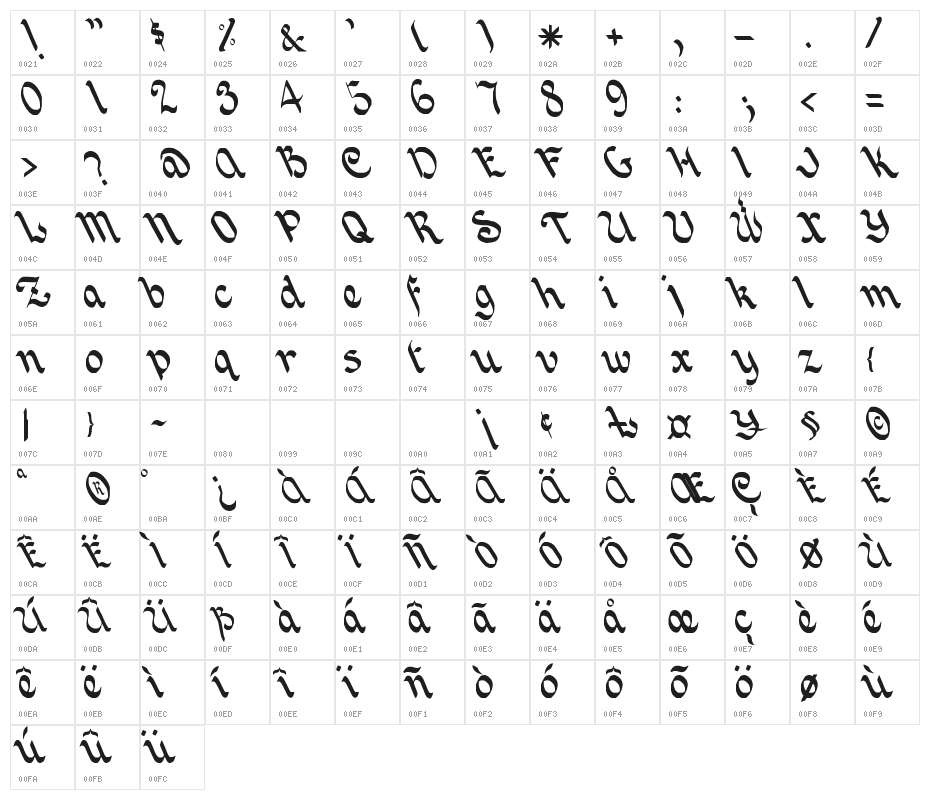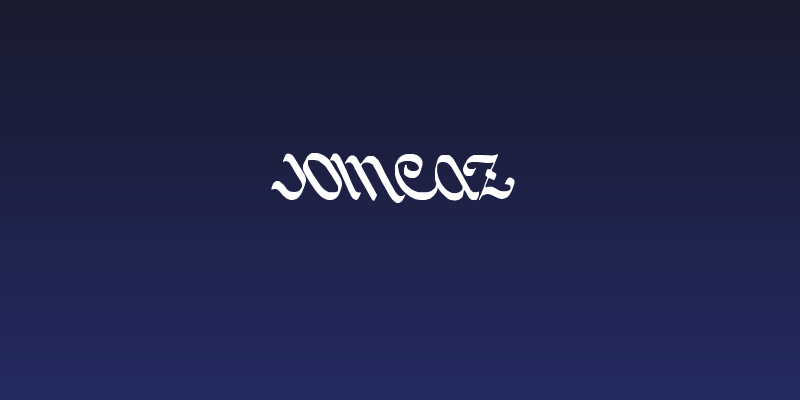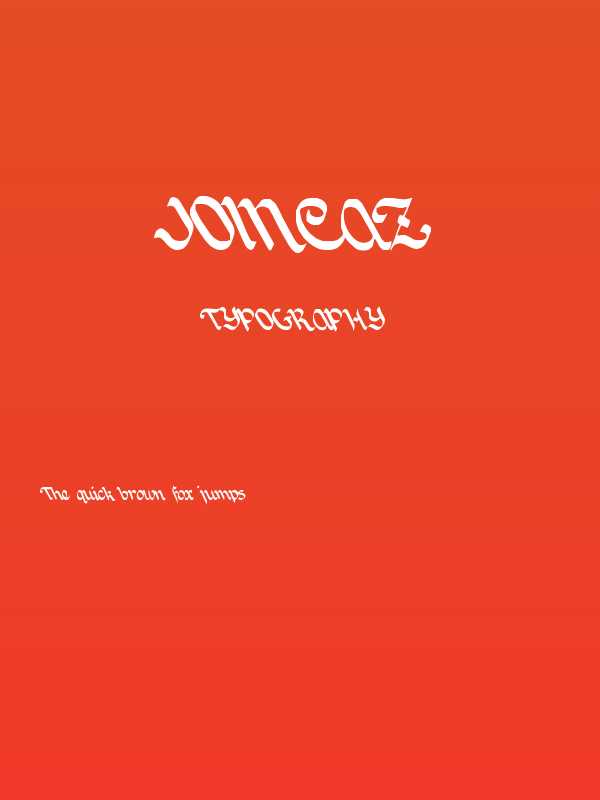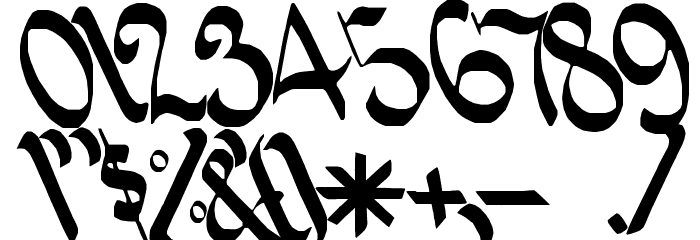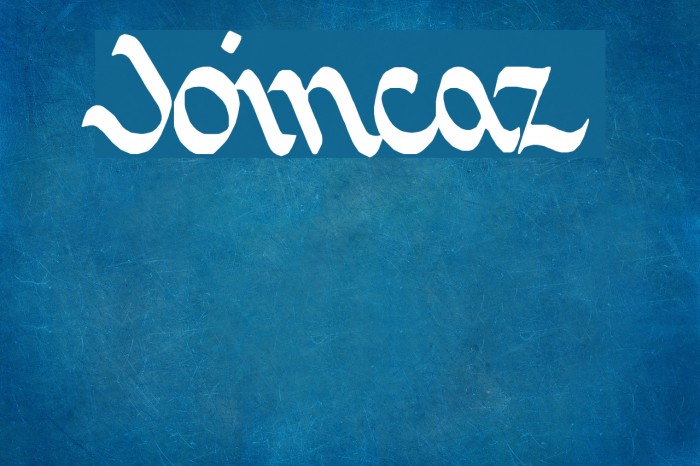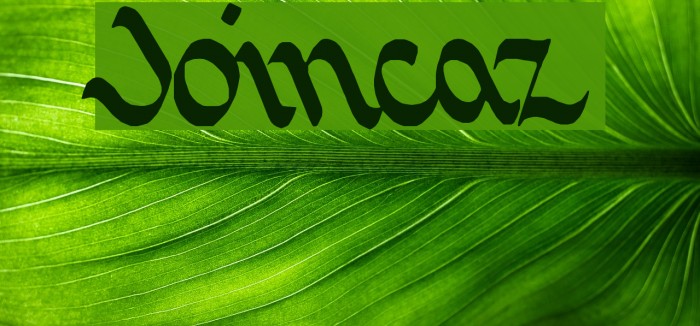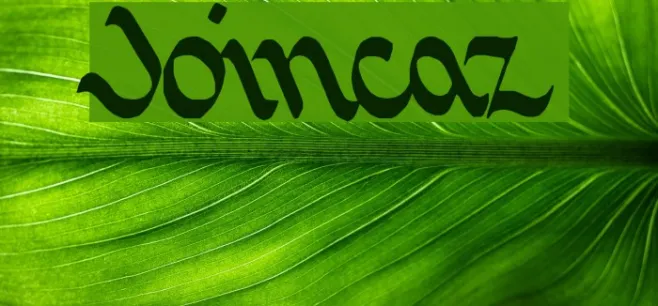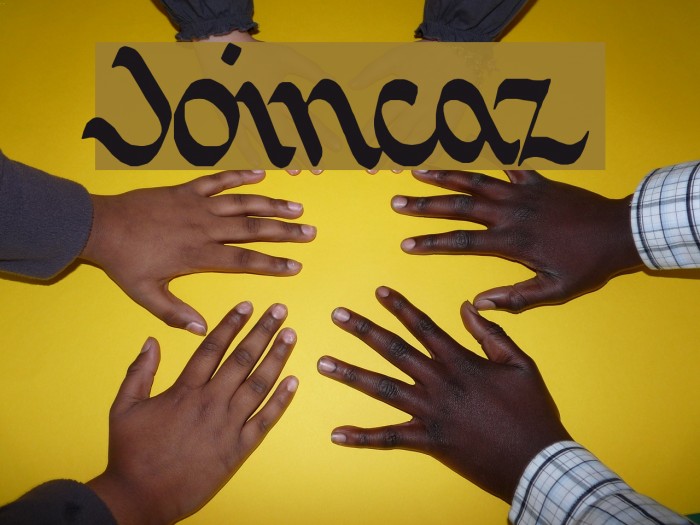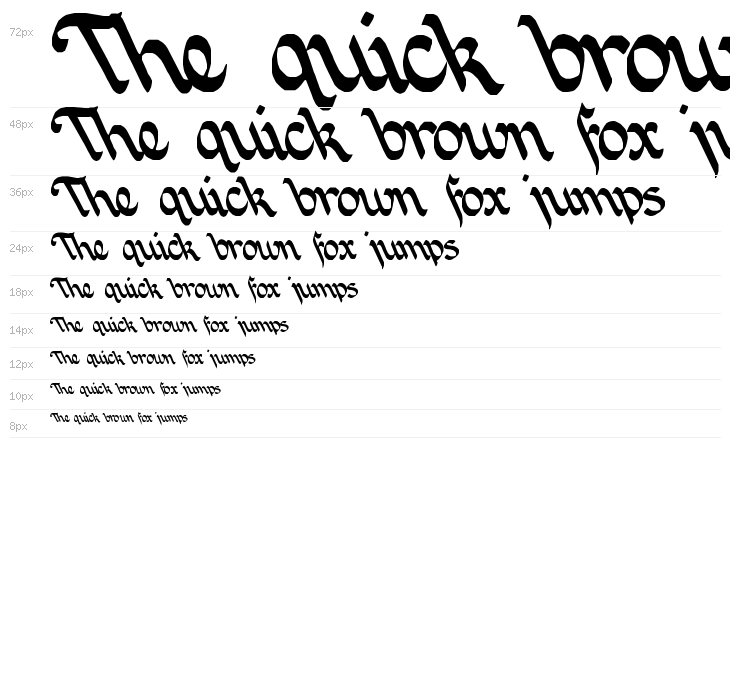
Joincaz Font
Joincaz Description
This font features a bold and dramatic style with a distinct calligraphic influence. The characters are intricately designed with sharp angles and flowing curves, creating a sense of movement and elegance. The uppercase letters are particularly striking, with elaborate flourishes that add a decorative touch. The lowercase letters maintain a consistent style, offering a harmonious balance between readability and artistic flair. The numerals and special characters are equally ornate, ensuring a cohesive look across all text elements. This font's unique aesthetic makes it suitable for projects that require a touch of sophistication and creativity.
| Proposed Projects | Ideal for wedding invitations, luxury branding, artistic posters, and decorative headlines. |